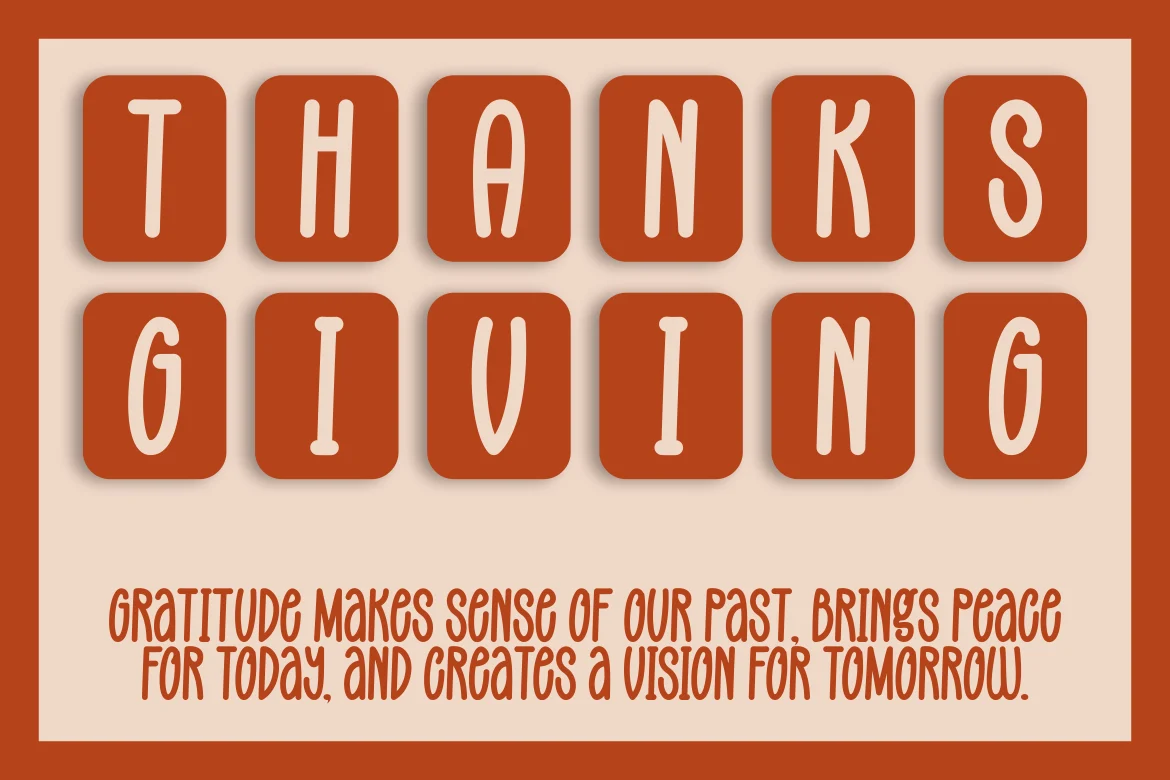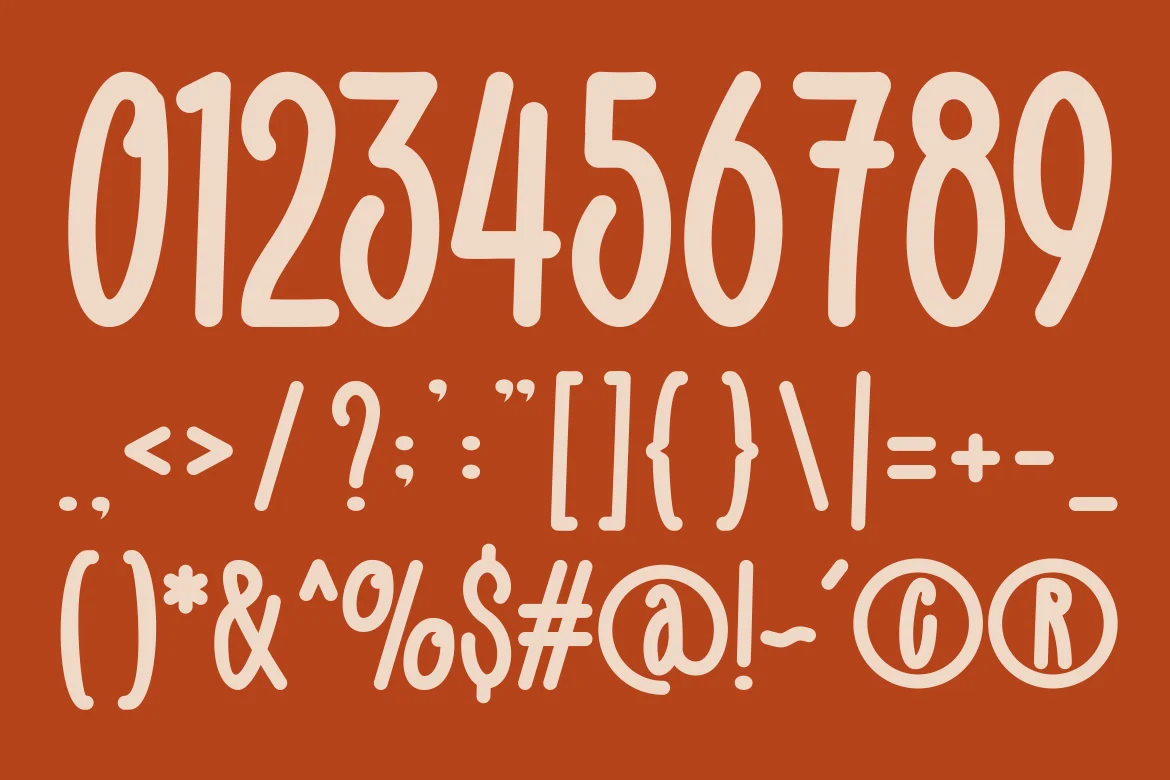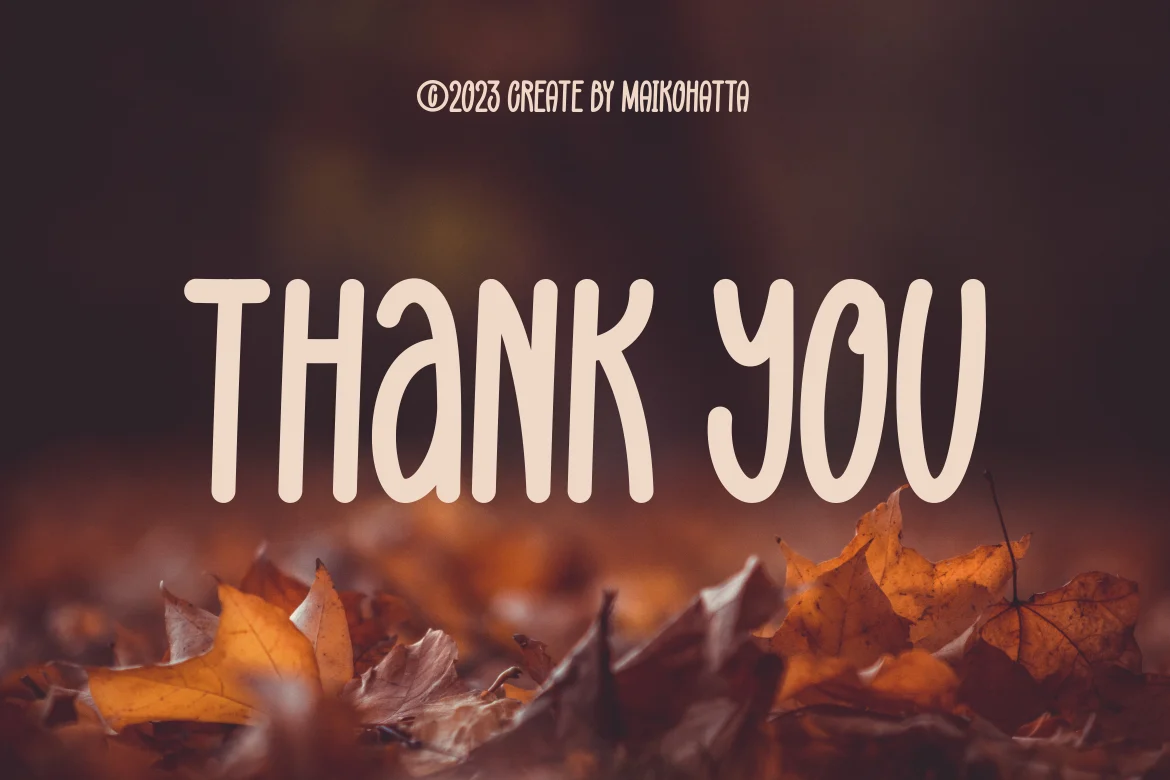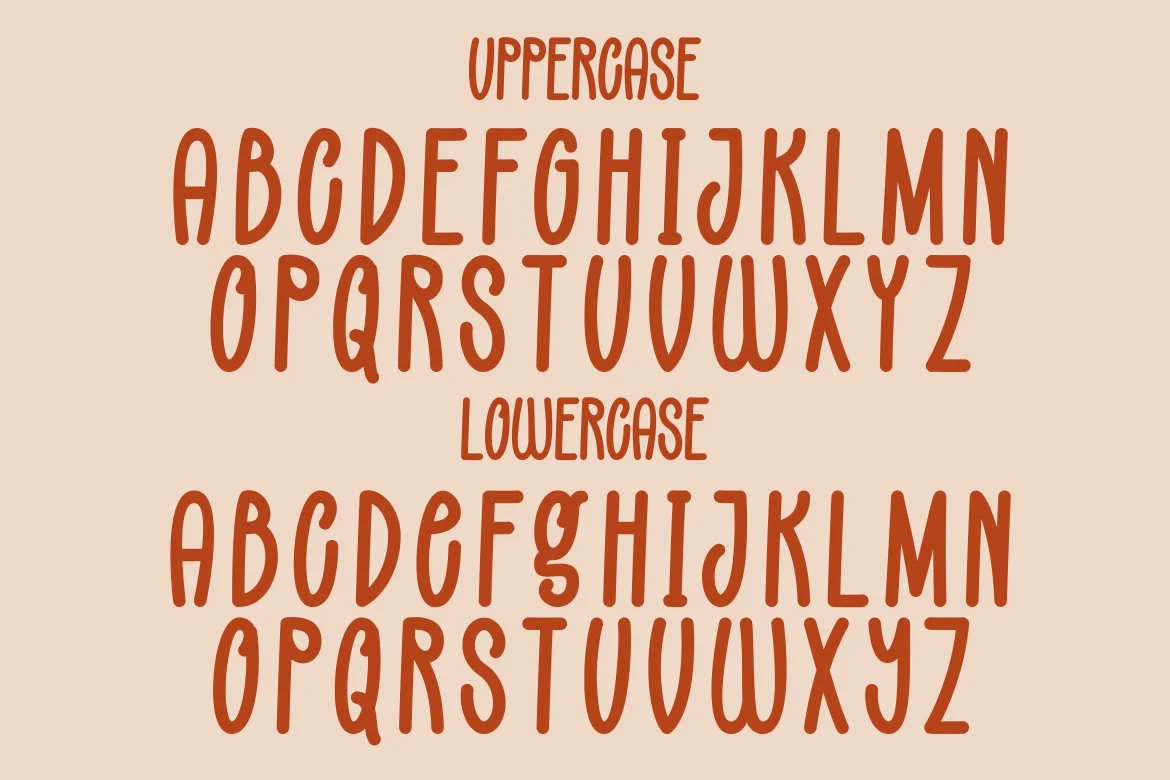
Introducing our new product Fall Pies - Modern Handwritten Font
Fall Pies suitable for greeting cards, invitations, posters, baby clothing, books cover, quotes, logos, presentations, headline, etc.outstanding in a wide range of contexts.